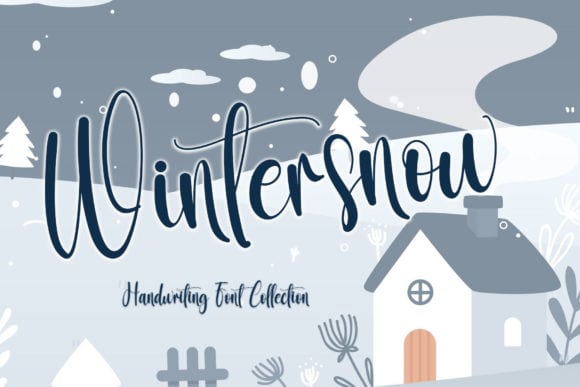
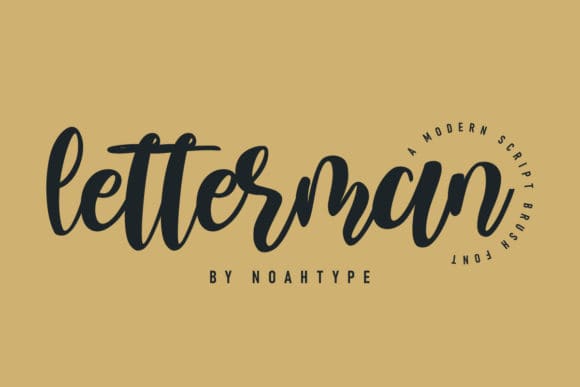
1. Letterman Font
Letterman is a delicate, elegant and flowing handwritten font. It has beautiful and well balanced characters and as a result, it matches a wide pool of designs. Add it to your most creative ideas and notice how it makes them come alive!
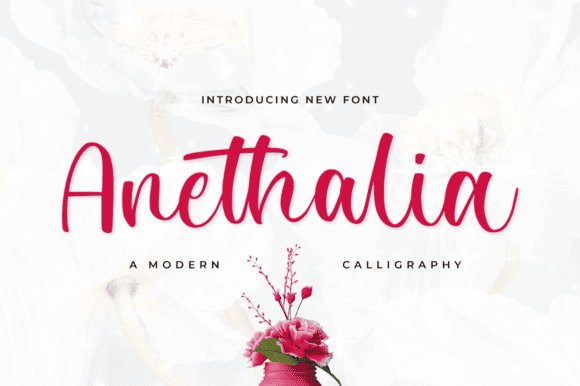
2. Anethalia Font
Anethalia is a lovely and delicate script font that exudes elegance and class. This font was particularly crafted for those who need a beautiful and refreshing look to their designs. Anethalia is PUA encoded which means you can access all glyphs and swashes with ease!
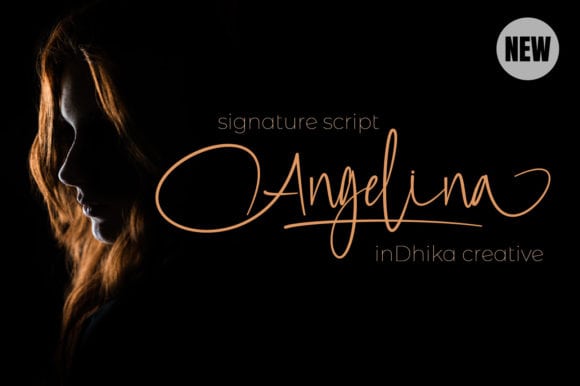
3. Angelina Font
Angelina is an elegant script font with a contemporary atmosphere and impeccable form, inspired by timeless classic calligraphy. This font is PUA encoded which means you can access all of the glyphs and swashes with ease!
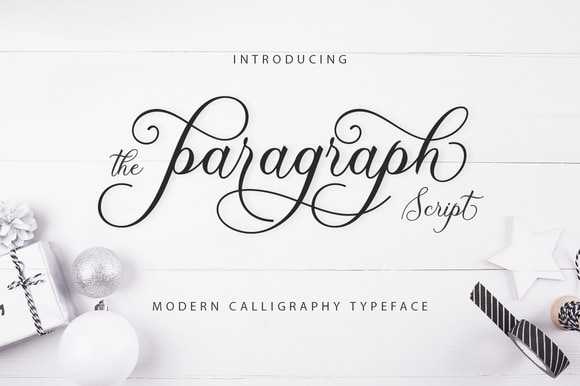
4. The Paragraph Script Font
The Paragraph is a gorgeous script font that is based on classic calligraphy.
The smooth decorated letters create a classy and elegant look. The Paragraph is packed with over 550 unique glyphs with 236 alternate characters.
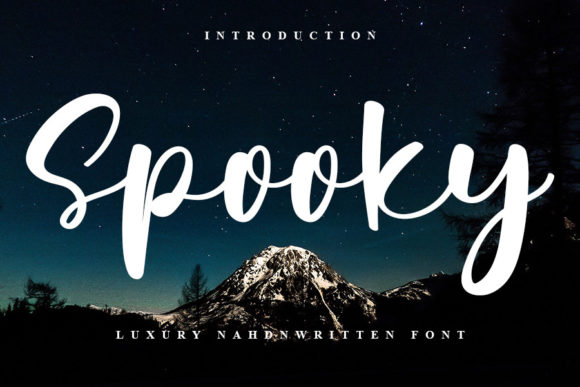
5. Spooky Font
Spooky is an elegant script font with a contemporary atmosphere and impeccable form, inspired by timeless classic calligraphy. Not too thin and not too thick, balanced and varied, this font was designed to enhance the beauty of your projects.
6. Winter Snow Font
Winter Snow is a charming and elegant font. This stunning handwritten font is a stylish homage to classic calligraphy. It features a varying baseline, smooth lines, and gorgeous glyphs.
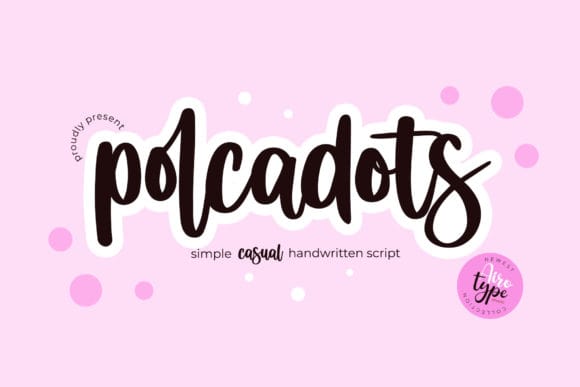
7. Polcadots Font
Polcadots is an elegant script font with a contemporary atmosphere and impeccable form, inspired by timeless classic calligraphy. Not too thin and not too thick, balanced and varied, this font was designed to enhance the beauty of your projects.
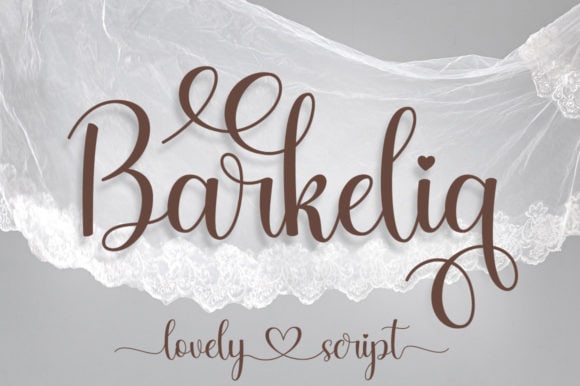
8. Barkelia Font
Barkelia is a delicate and elegant handwritten font. Its distinct and well rounded letters make this font a masterpiece. Fall in love with its incredibly versatile style and use it to create spectacular designs!
This font is PUA encoded which means you can access all of the glyphs and swashes with ease!
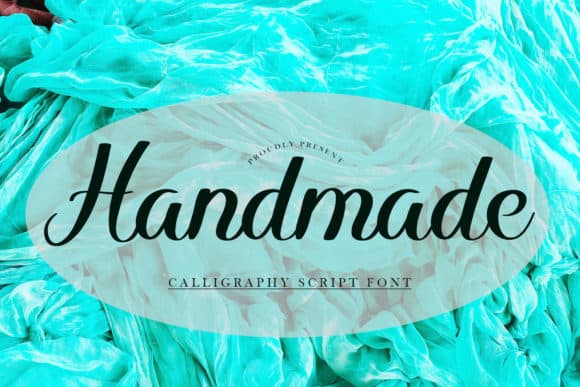
9. Handmade Font
Handmade is a lovely script font featuring charming, playful characters that seem to dance along the baseline. Add this font to your most creative ideas, and notice how it makes them stand out!
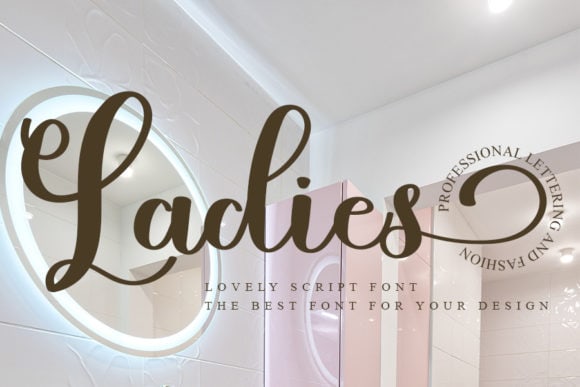
10. Ladies Font
Ladies is an elegant script font with a contemporary atmosphere and impeccable form, inspired by timeless classic calligraphy. Not too thin and not too thick, balanced and varied, this font was designed to enhance the beauty of your projects.